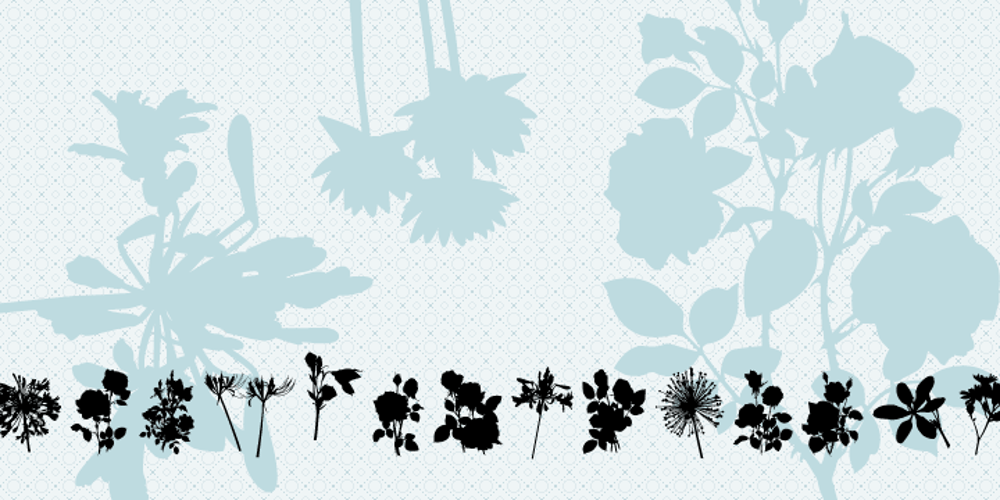
SubiktoTwo Font Family was designed by Valérie Desrochers, Sébastien Théraulaz and published by Subtitude. SubiktoTwo contains 1 styles and family package options. The first flower that was created was for a the cover of a cultural magazine in Montréal (Québec). Then we couldn’t stop and we’ve created a whole font with interesting forms of flowers. Please note that this font is unusually detailed and its complexity may exceed the memory limitations of drawing programs such as Adobe Illustrator or Corel Draw.